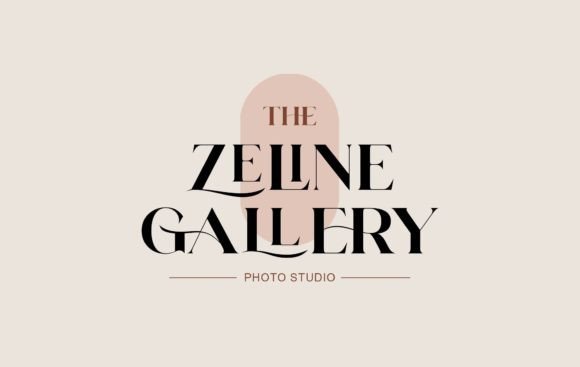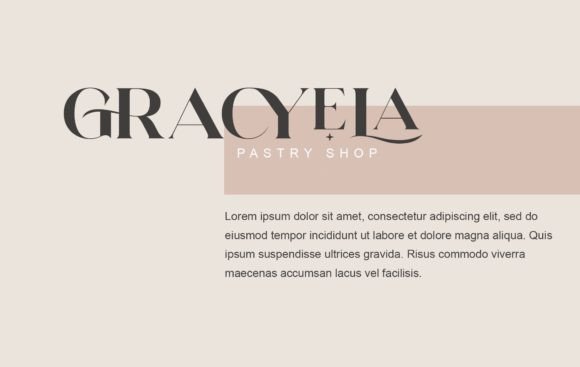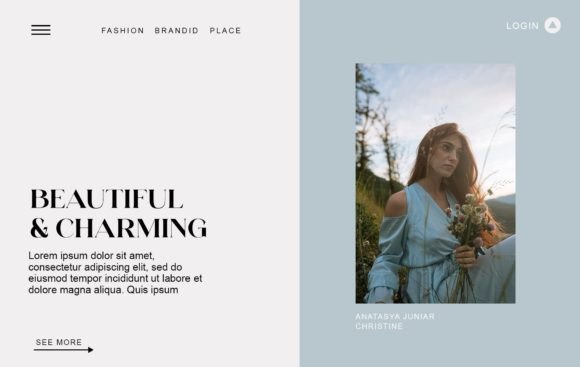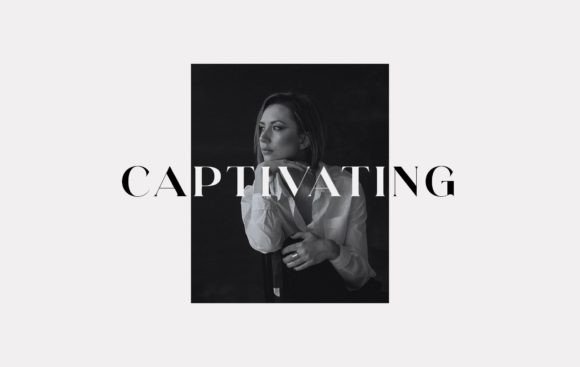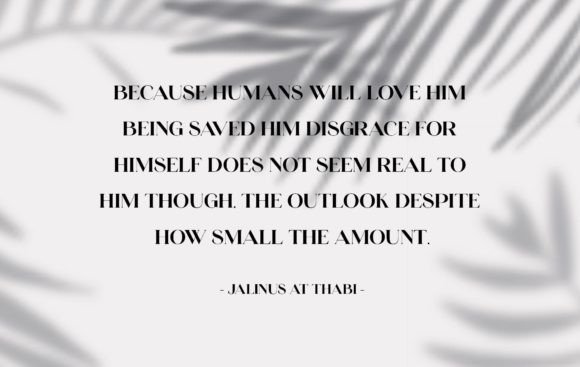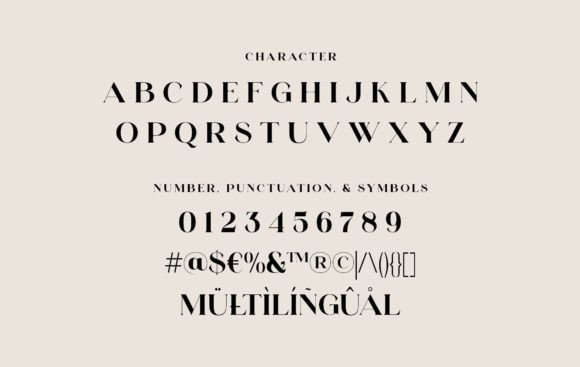
Glaera Elegance Font: Elevate Your Designs with Elegance and Sophistication
In the world of typography, a font can make or break the aesthetic appeal of a design project. For designers and crafters seeking to add a touch of elegance and sophistication to their work, Glaera Elegance is a majestic serif font that stands out from the crowd. With its contemporary atmosphere and impeccable form, Glaera Elegance is the perfect choice for those looking to elevate their designs to new heights.
The Characteristics of Glaera Elegance
Glaera Elegance is a carefully crafted font that boasts a range of characteristics that set it apart from other serif fonts. Its majestic and expressive design makes it perfect for use in a variety of projects, from luxury branding and advertising to packaging and editorial design. The font’s elegant lines and curves are meticulously designed to create a sense of sophistication and refinement, making it ideal for designers seeking to add a touch of class to their work.
Contemporary yet Timeless
One of the standout features of Glaera Elegance is its ability to blend contemporary style with timeless elegance. The font’s modern atmosphere is perfectly balanced with classic serif elements, creating a unique and versatile design that can be used in a wide range of applications. Whether you’re working on a modern digital project or a traditional print design, Glaera Elegance is the perfect choice for designers seeking to create a lasting impression.
Impeccable Form and Function
In addition to its stunning aesthetic appeal, Glaera Elegance is also designed with impeccable form and function in mind. The font is carefully crafted to ensure that it is highly legible and easy to read, making it perfect for use in body text as well as headlines and titles. This attention to detail makes Glaera Elegance a versatile font that can be used in a wide range of design projects, from editorial and publishing to branding and advertising.
Glaera Elegance is a font that is specifically designed with designers and crafters in mind. Its elegant and sophisticated design makes it perfect for use in a wide range of projects, from digital designs and crafts to traditional print materials. Whether you’re working on a personal project or a client’s brief, Glaera Elegance is the perfect choice for designers seeking to add a touch of elegance and sophistication to their work.
Enhance Your Projects with Glaera Elegance
So why choose Glaera Elegance for your design projects? With its majestic and elegant design, contemporary atmosphere, and impeccable form and function, this font is the perfect choice for designers seeking to elevate their work to new heights. Whether you’re looking to create a lasting impression with a luxury brand or simply want to add a touch of sophistication to your designs, Glaera Elegance is the perfect choice.
Key Features of Glaera Elegance
- Majestic and elegant serif font design
- Contemporary atmosphere with timeless elegance
- Impeccable form and function for high legibility
- Perfect for use in a wide range of design projects, from digital to print
- Ideal for luxury branding, advertising, packaging, and editorial design
| Font Name | Glaera Elegance Font |
| Author | inkspirate.design |
In conclusion, Glaera Elegance is a stunning serif font that is perfect for designers and crafters seeking to add a touch of elegance and sophistication to their work. With its majestic and expressive design, contemporary atmosphere, and impeccable form and function, this font is the perfect choice for a wide range of design projects. Whether you’re looking to create a lasting impression or simply want to elevate your designs to new heights, Glaera Elegance is the perfect choice.